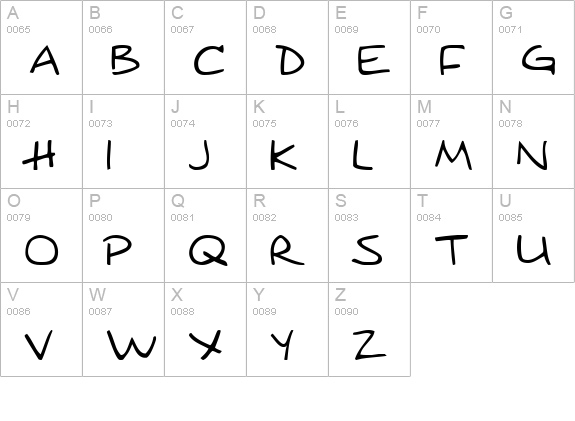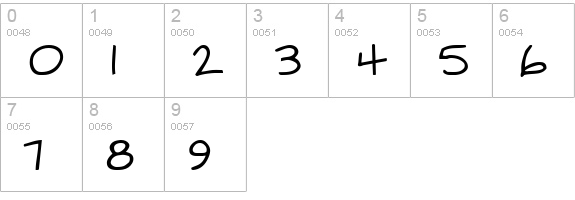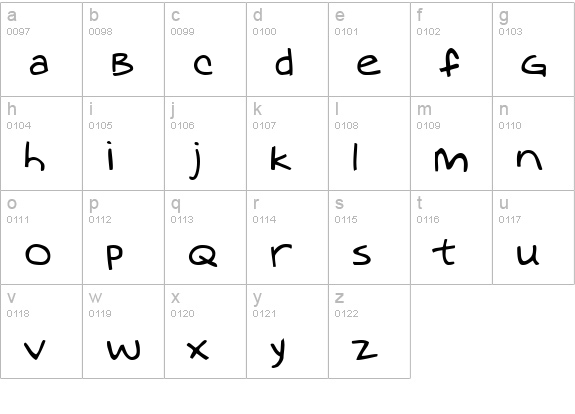
TR Augie font is a charming and versatile typeface that brings a touch of whimsy to any design project. With its playful yet elegant appearance, this font is perfect for adding a fun and creative flair to your designs. Whether you're working on a branding project, invitation, poster, or any other creative endeavor, TR Augie is sure to make a statement. The best part is that TR Augie font is available for free download at FontsMarket.com. This means you can easily access this delightful font and incorporate it into your projects without any cost. With its unique character and easy readability, TR Augie is a must-have addition to your font collection. Don't miss out on the opportunity to enhance your designs with the distinctive style of TR Augie font. Download it for free today and let your creativity shine!